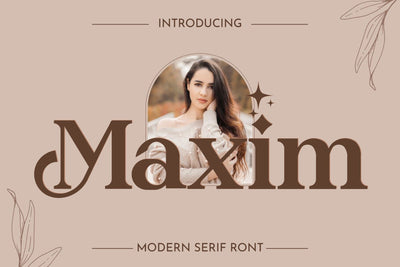
Maxim Font
With its clean and professional look, Maxim Font is perfect for a wide range of applications. Whether you're designing a website, creating digital graphics, or working on a print project, this font is an excellent choice. Its elegant and modern design makes it perfect for a variety of purposes, and it's sure to impress your audience with its high-quality appearance.